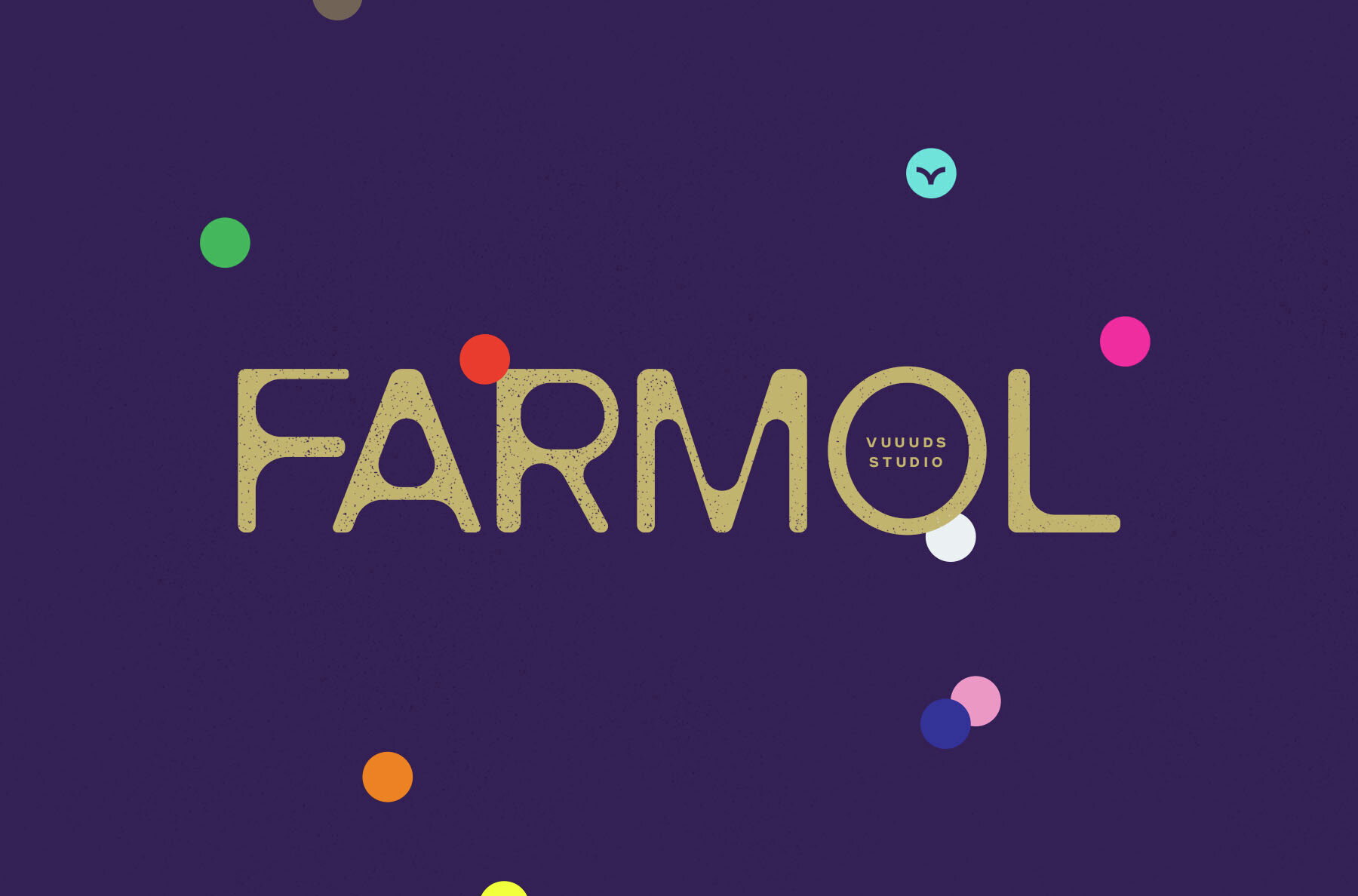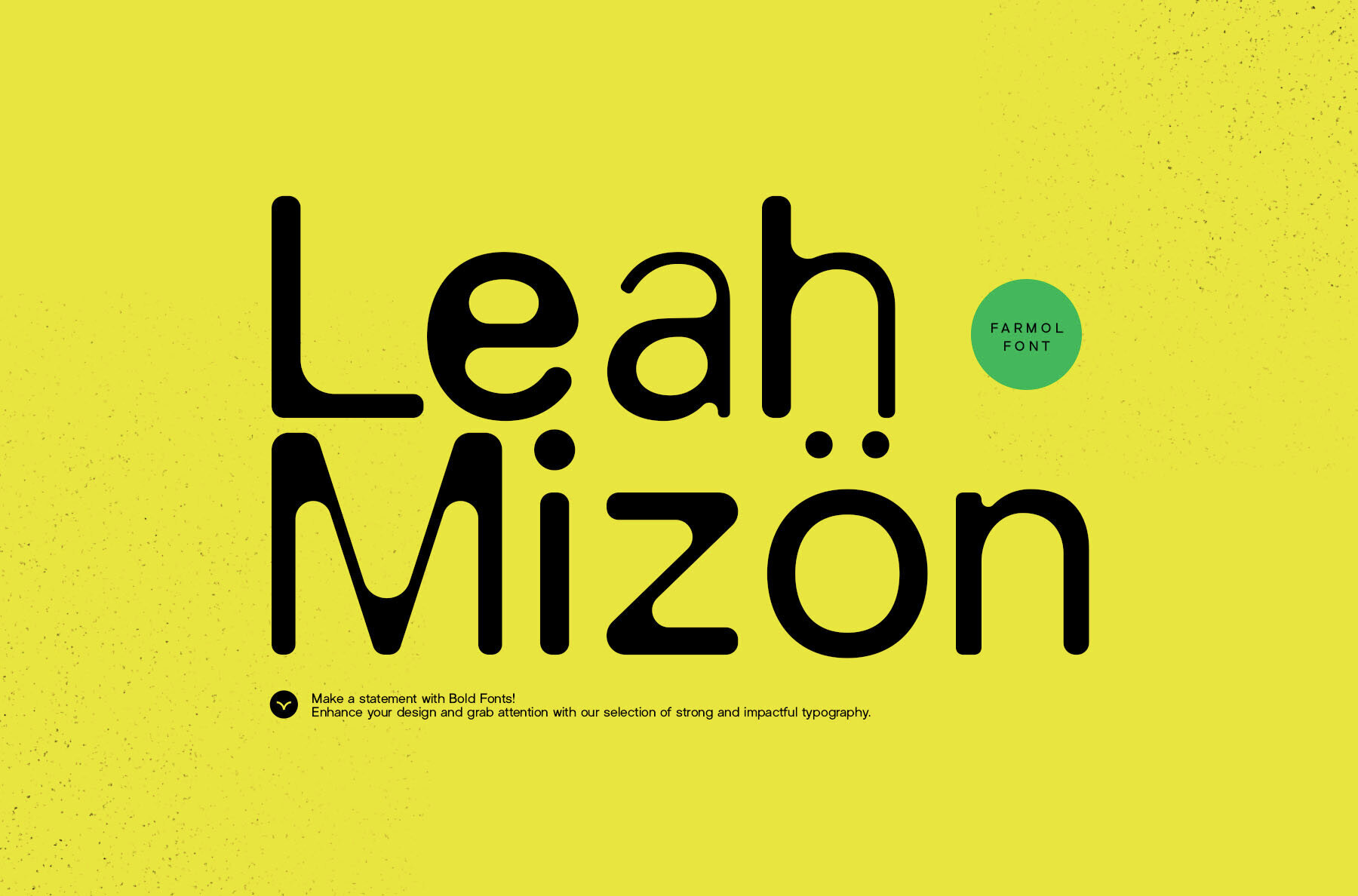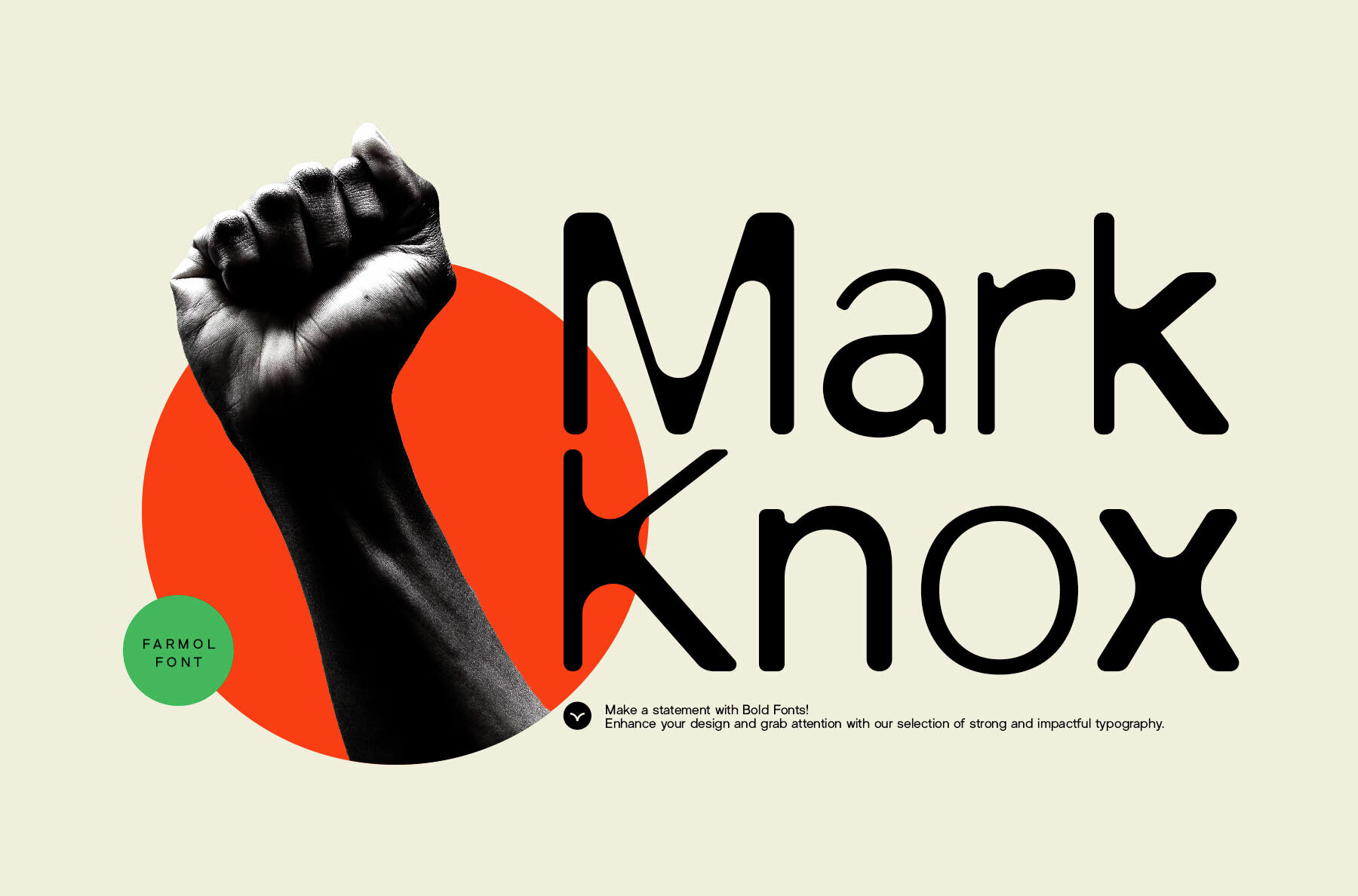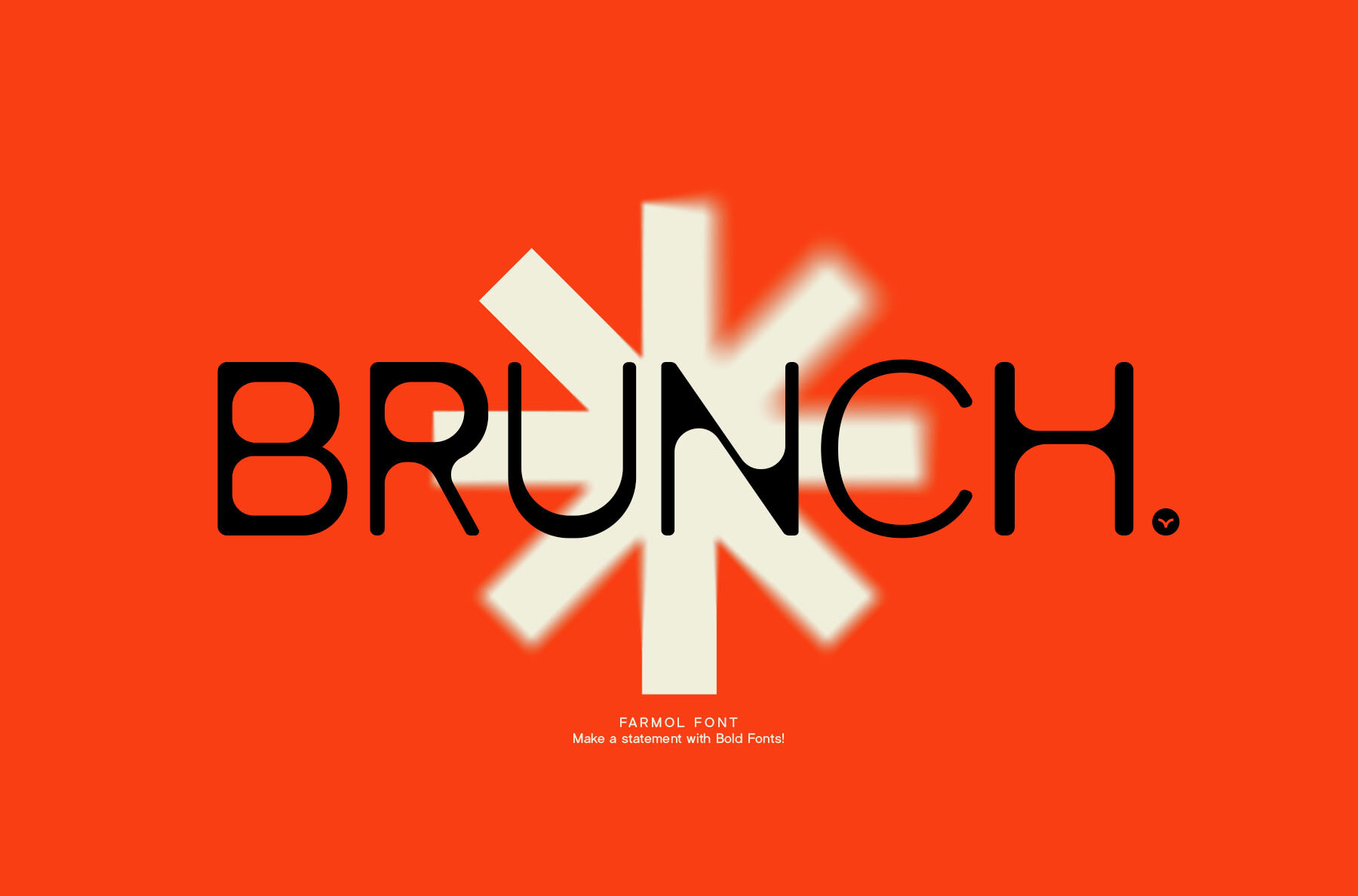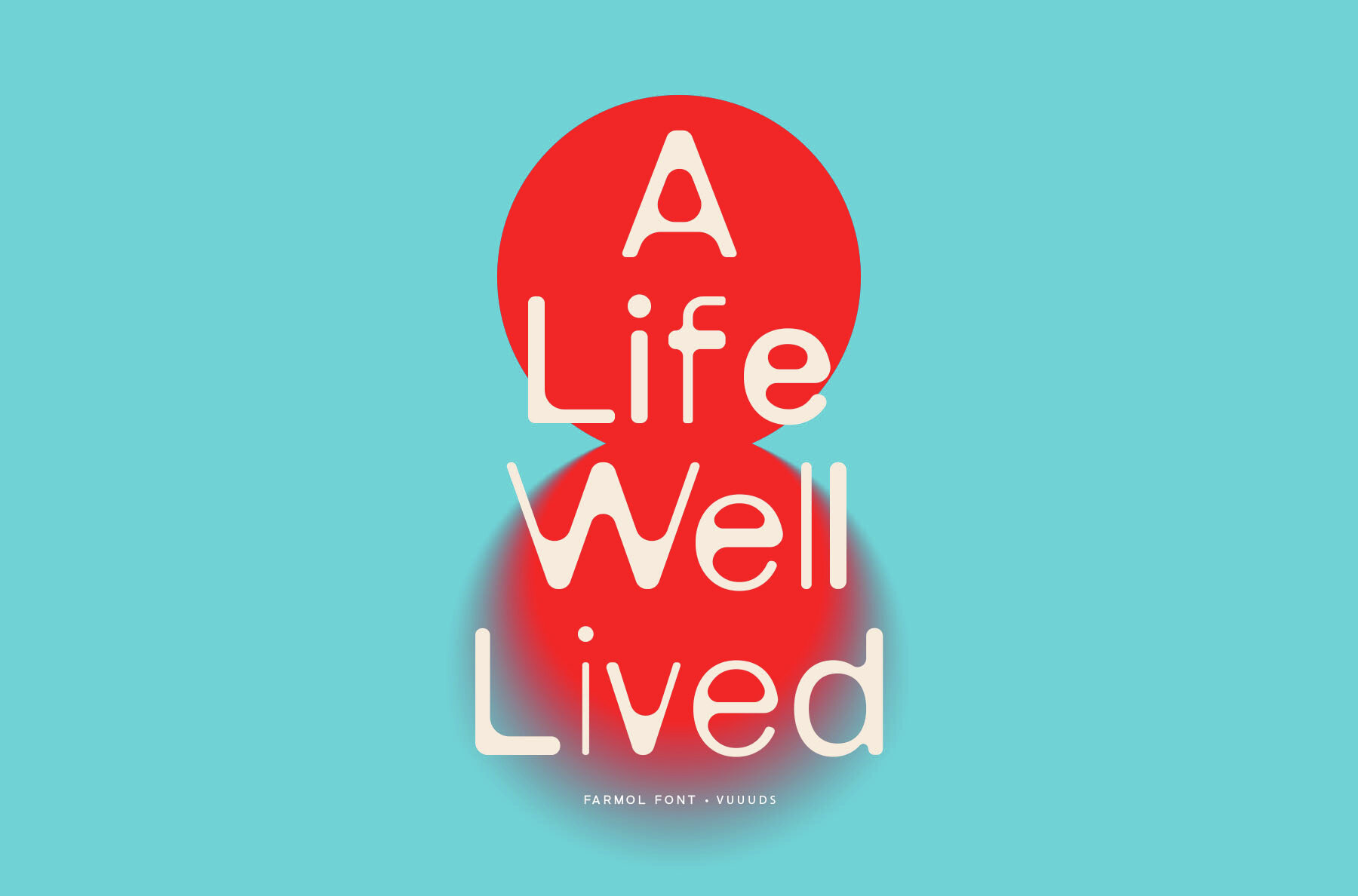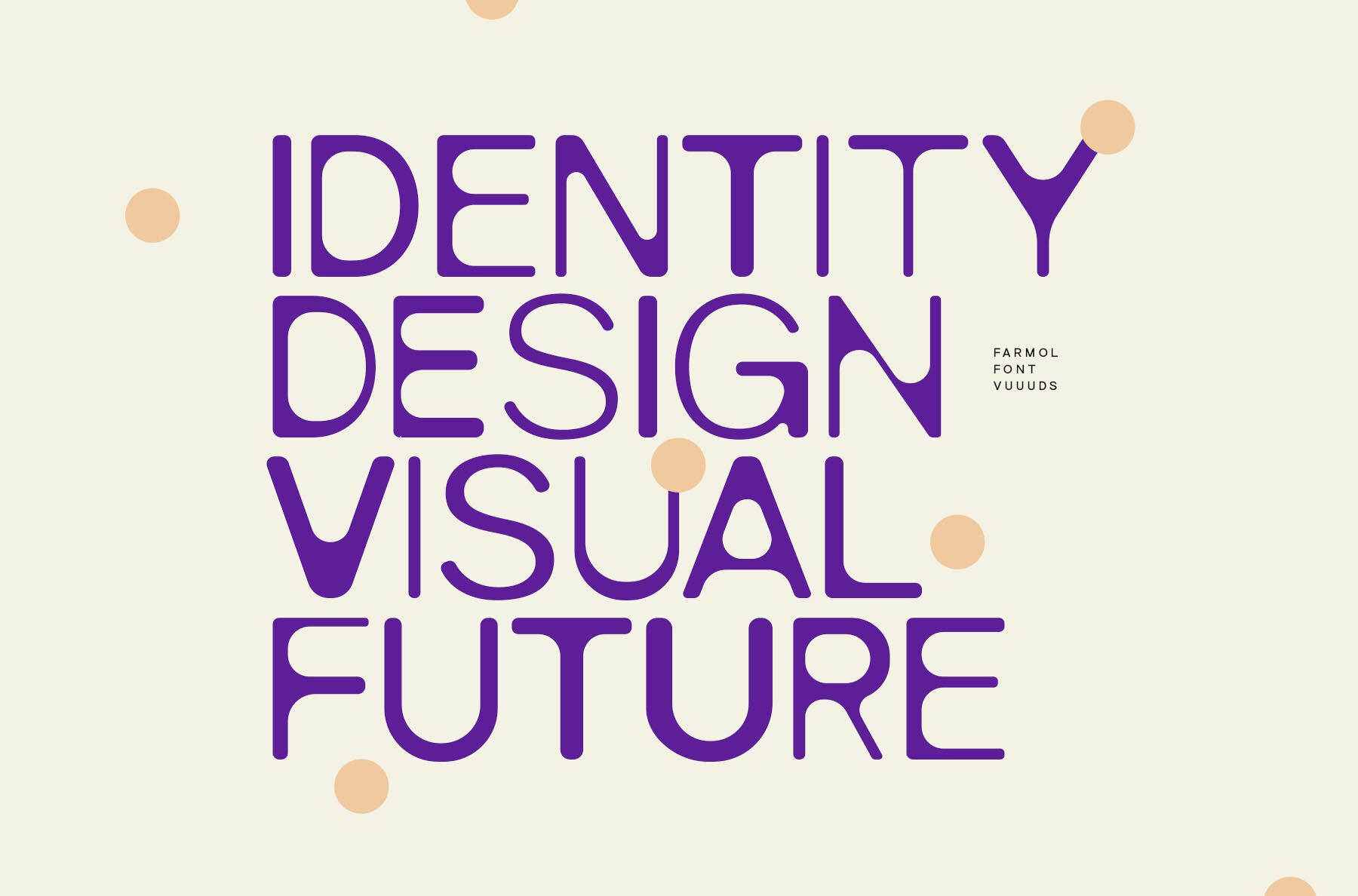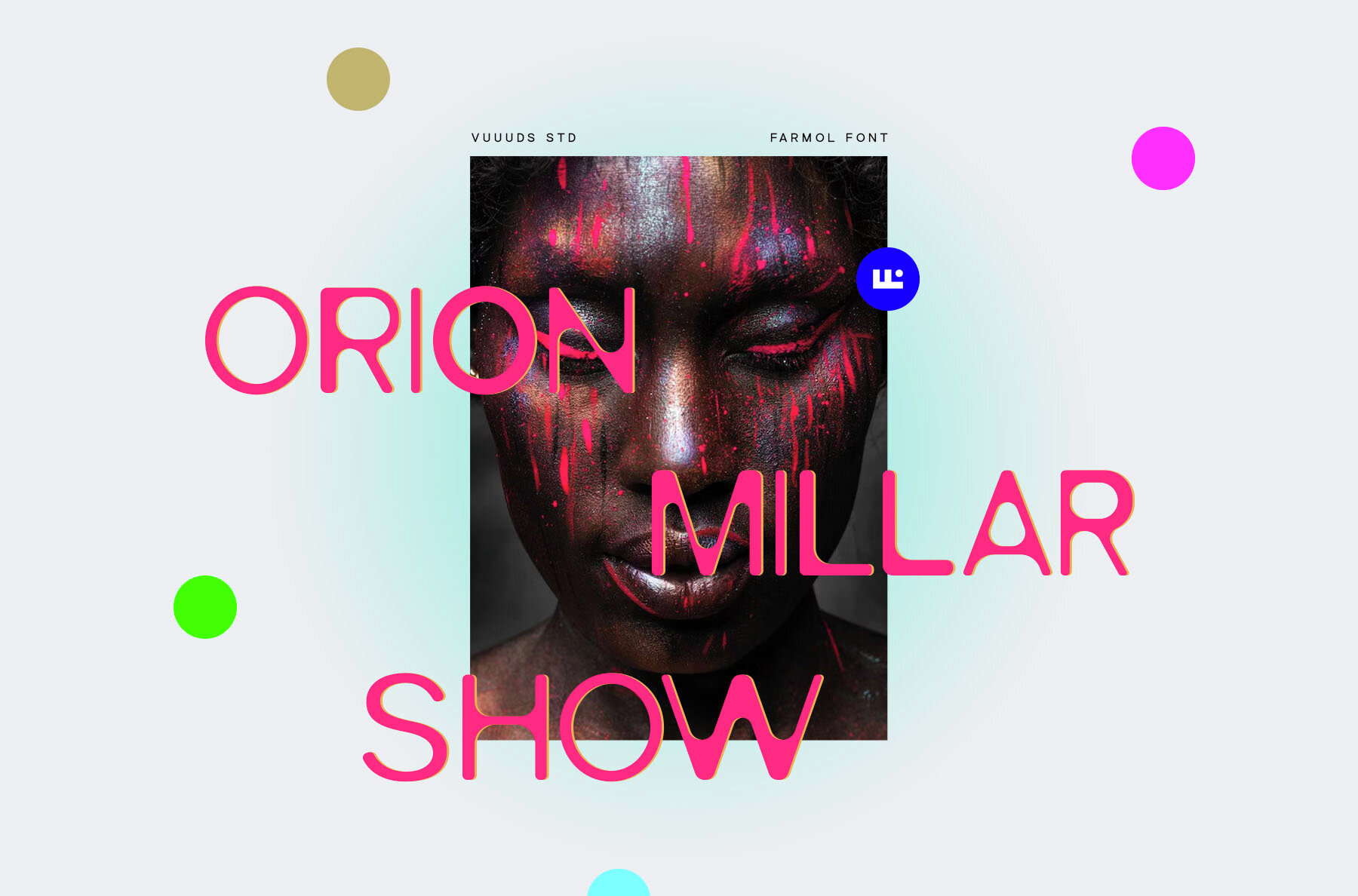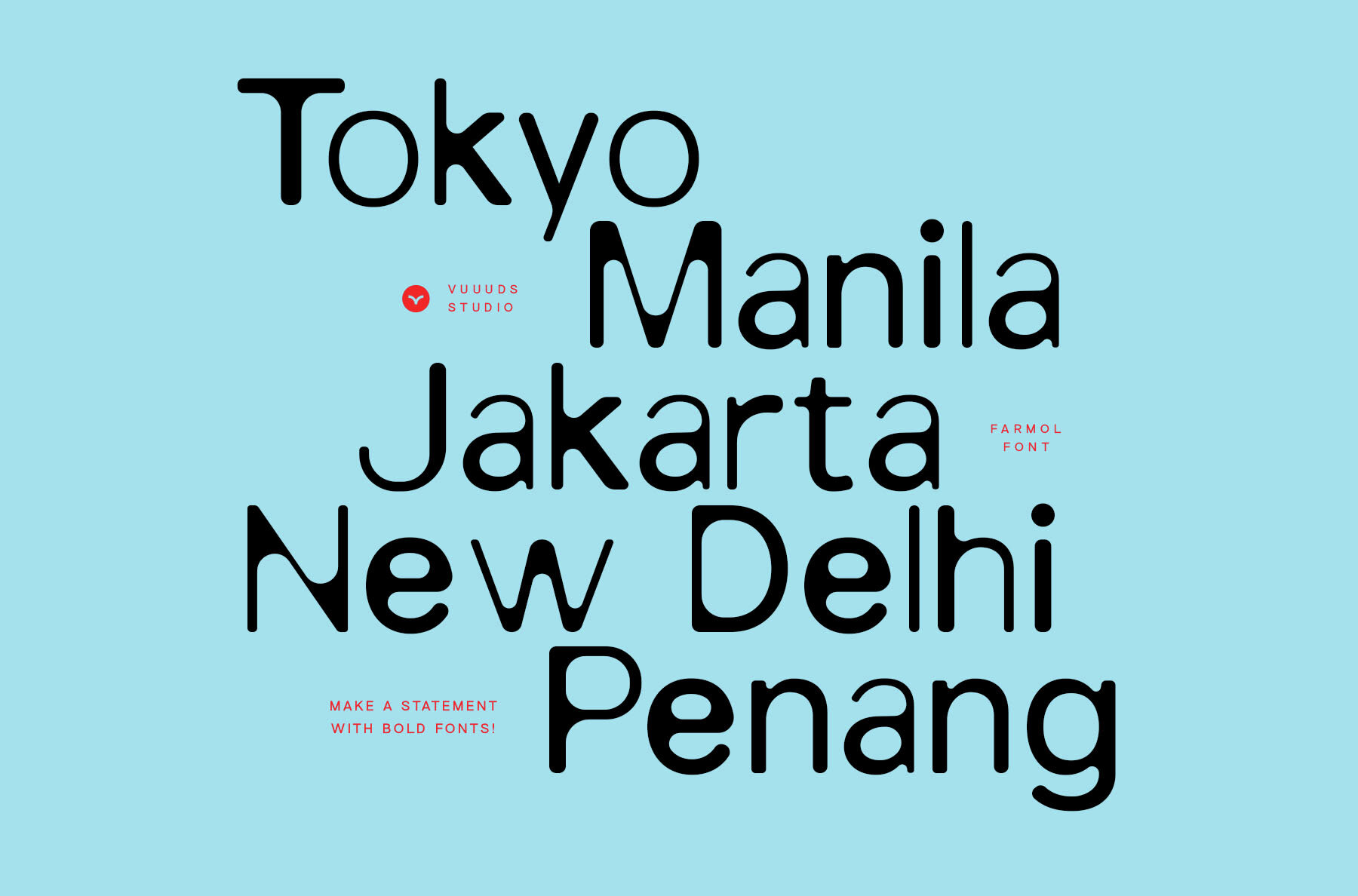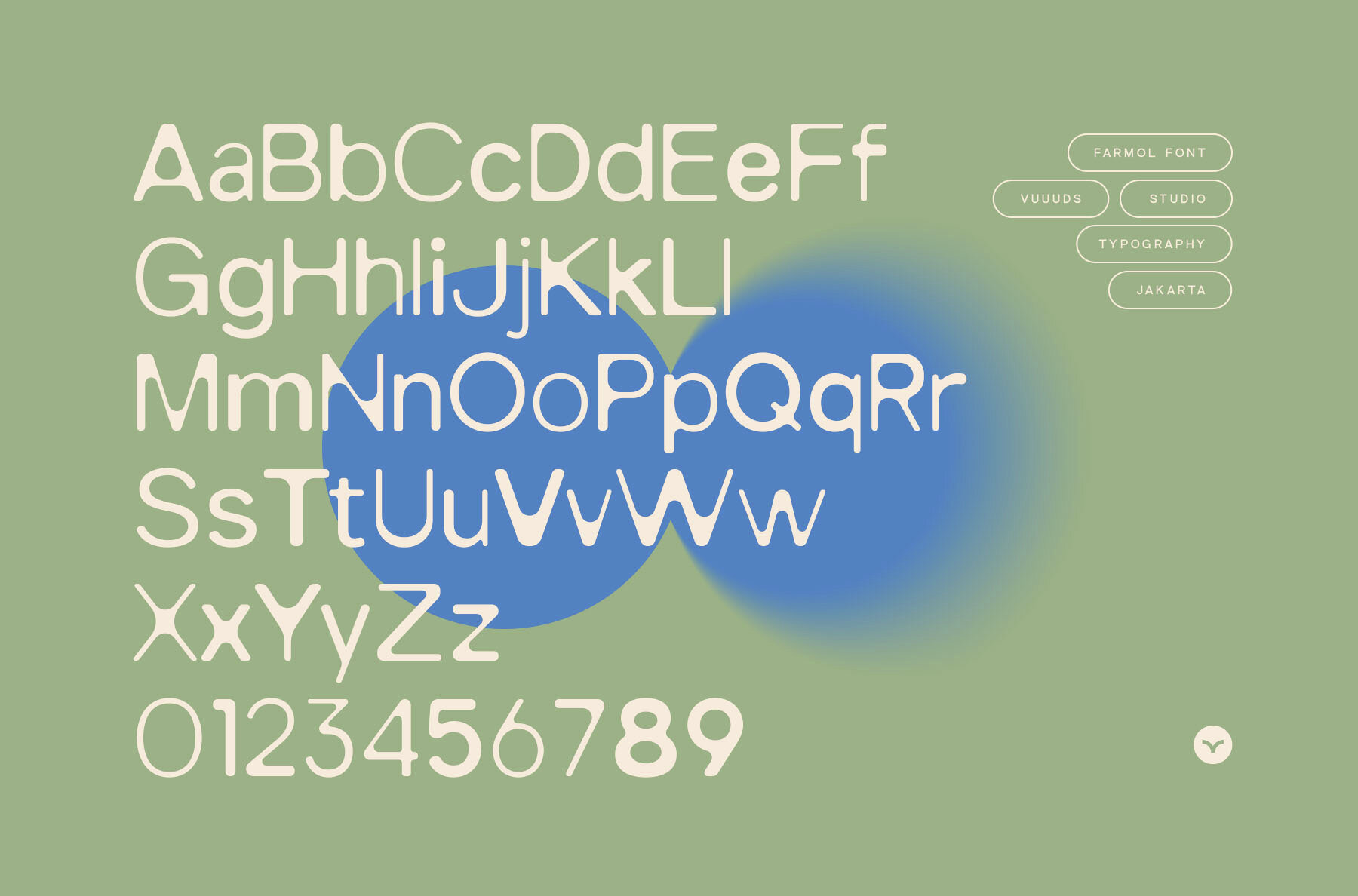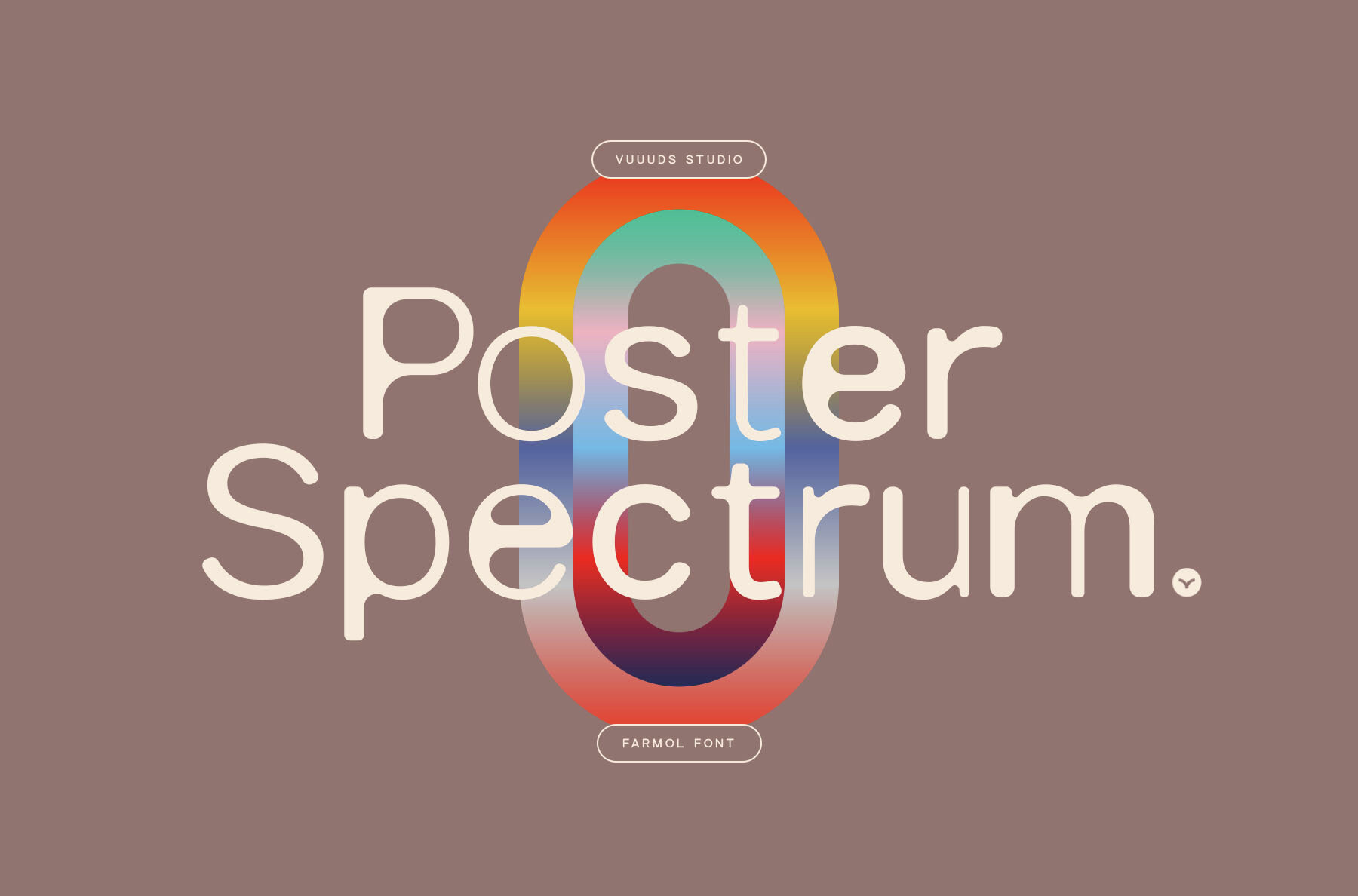
Farmol Font
Farmol Regular
Farmol is a modern, rounded sans-serif font, meticulously crafted with unique characters. This font comes with beautiful alternate glyphs, adding versatility to your designs. Whether you're using Mac's Font Book or Windows' Character Map, accessing these alternates is straightforward, and a tutorial link is included in the zip file for guidance.
Farmol supports an extensive range of foreign languages, making it highly adaptable for international projects. Characters include accented letters, ligatures, and various currency symbols. The clean and contemporary design of Farmol makes it perfect for numerous applications, from web design to print media, ensuring your text stands out with clarity and elegance.